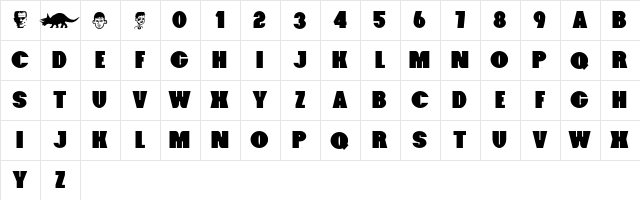
Foxxy Regular
| Foundry | Jeremy Woods |
| Designer | Jeremy Woods |
Design Context for Foxxy Typeface
Foxxy offers clean, dependable letterforms without strong stylistic allegiance, making it a practical choice for designers who need flexibility.